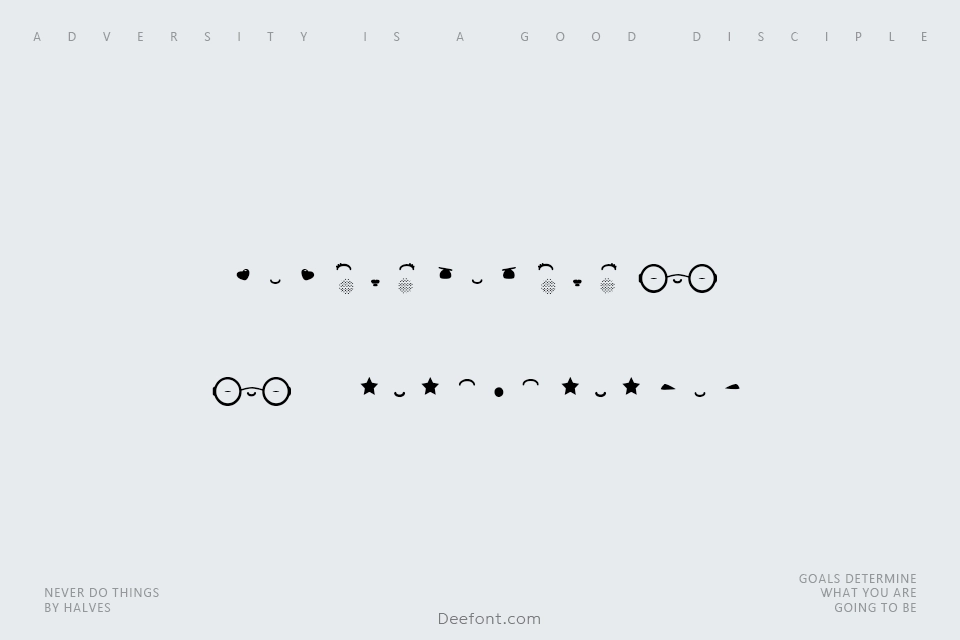
Kawaii eyes Font
The Kawaii eyes font brings playful energy to any creative project. Combining cute facial expressions and a lively dingbat style, this font is perfect for kids’ crafts, party invitations, and friendly branding. Each glyph is a unique, expressive eye—instantly adding personality and warmth. Ideal for creating cheerful visuals, Kawaii eyes inspires creativity and fun in both personal and non-commercial uses.